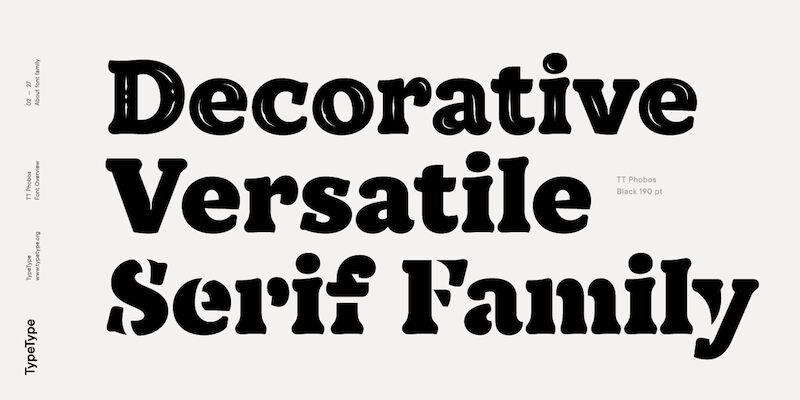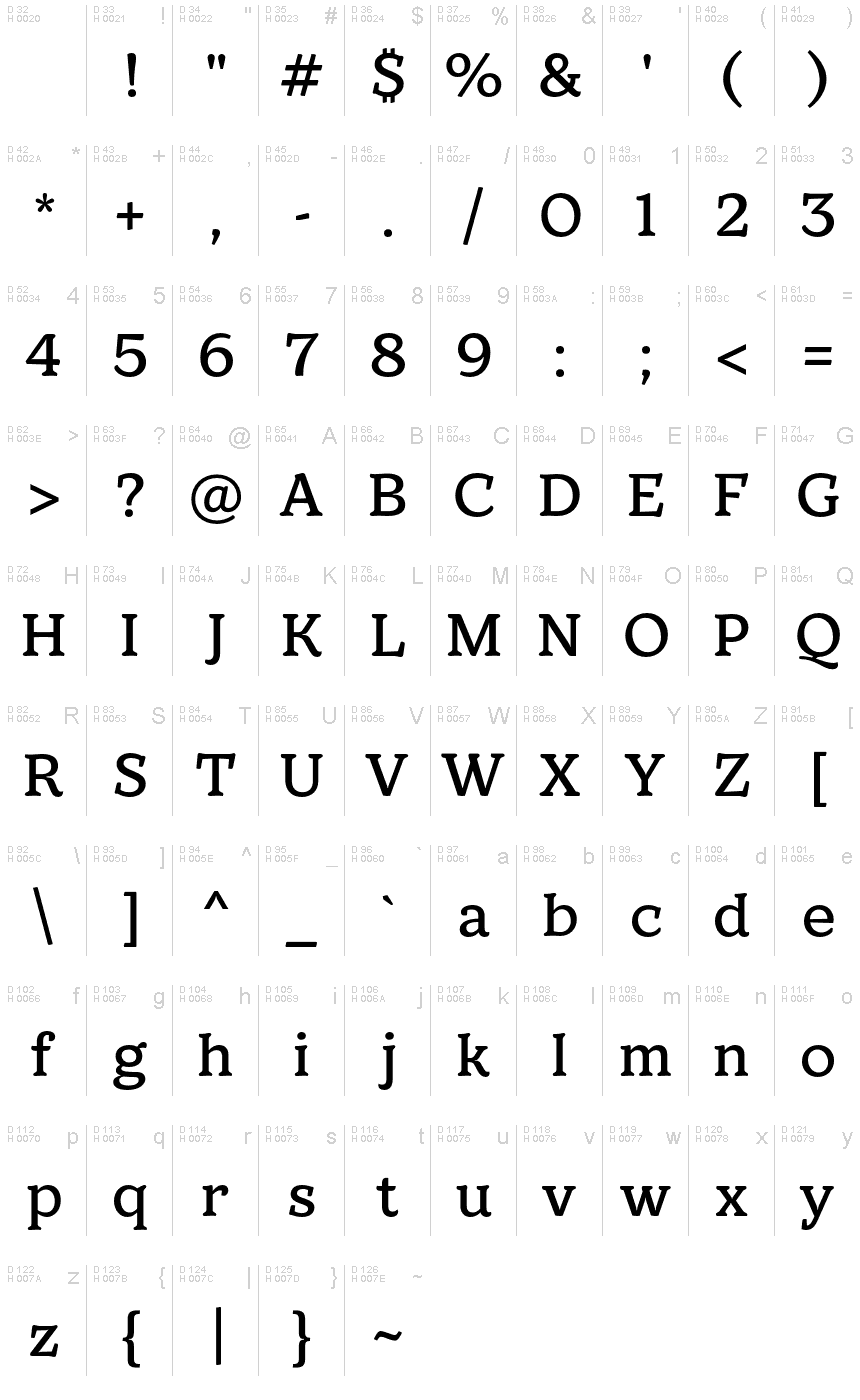
TT Phobos Trial DemiBold
TT Phobos DemiBold is a stunning serif font that exudes elegance and sophistication. Created by the TypeType Foundry, this semi-bold typeface is perfect for projects that require a touch of refinement, such as fashion magazines, high-end branding materials, and luxury product packaging. Its clean lines and classic styling make it versatile enough to use in both digital and print media. Whether you're designing a sleek website or a chic invitation suite, TT Phobos DemiBold will elevate your project to the next level. With its timeless appeal and impeccable design, this font is sure to leave a lasting impression on anyone who sees it.